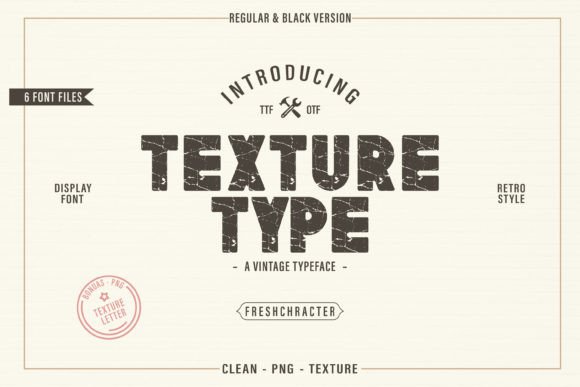
Introducing Texture Type Font, the ultimate choice for adding a touch of vintage charm and retro grunge to your creative projects. Developed by the brilliant minds at MistyDesigns, this font is here to revolutionize the way you express yourself in the digital world.
Dare to be different and stand out from the crowd with Texture Type Font. As the best font for Facebook cover designs, it effortlessly captures attention and ignites curiosity. Its captivating essence will leave a lasting impression on your audience, making your social media presence truly unforgettable.
Unleash your creativity and let Texture Type Font elevate your designs to new heights. This display font family offers a wide range of possibilities, making it perfect for various applications. Whether you're designing mugs, t-shirts, baby shirts, covers, headings, or any other project, Texture Type Font will add a unique and eye-catching touch.
Immerse yourself in the world of Texture Type Font and witness the magic unfold. With its mesmerizing grunge color and vintage appeal, it evokes emotions and creates a sense of nostalgia. Every stroke and curve exudes passion, making your designs come alive with an unparalleled sense of authenticity.
Step into a world where individuality reigns supreme and let Texture Type Font be your ultimate tool for self-expression. Its versatility knows no bounds, allowing you to effortlessly convey your message with style and impact. Whether you're a seasoned designer or just starting your creative journey, Texture Type Font is the perfect companion for unleashing your artistic potential.
Experience the power of Texture Type Font today and let your creativity soar. Embrace the unique, the unconventional, and the extraordinary. Leave a lasting impression with every project, and watch as your designs captivate hearts and minds. Get ready to embark on a creative adventure like no other with Texture Type Font.